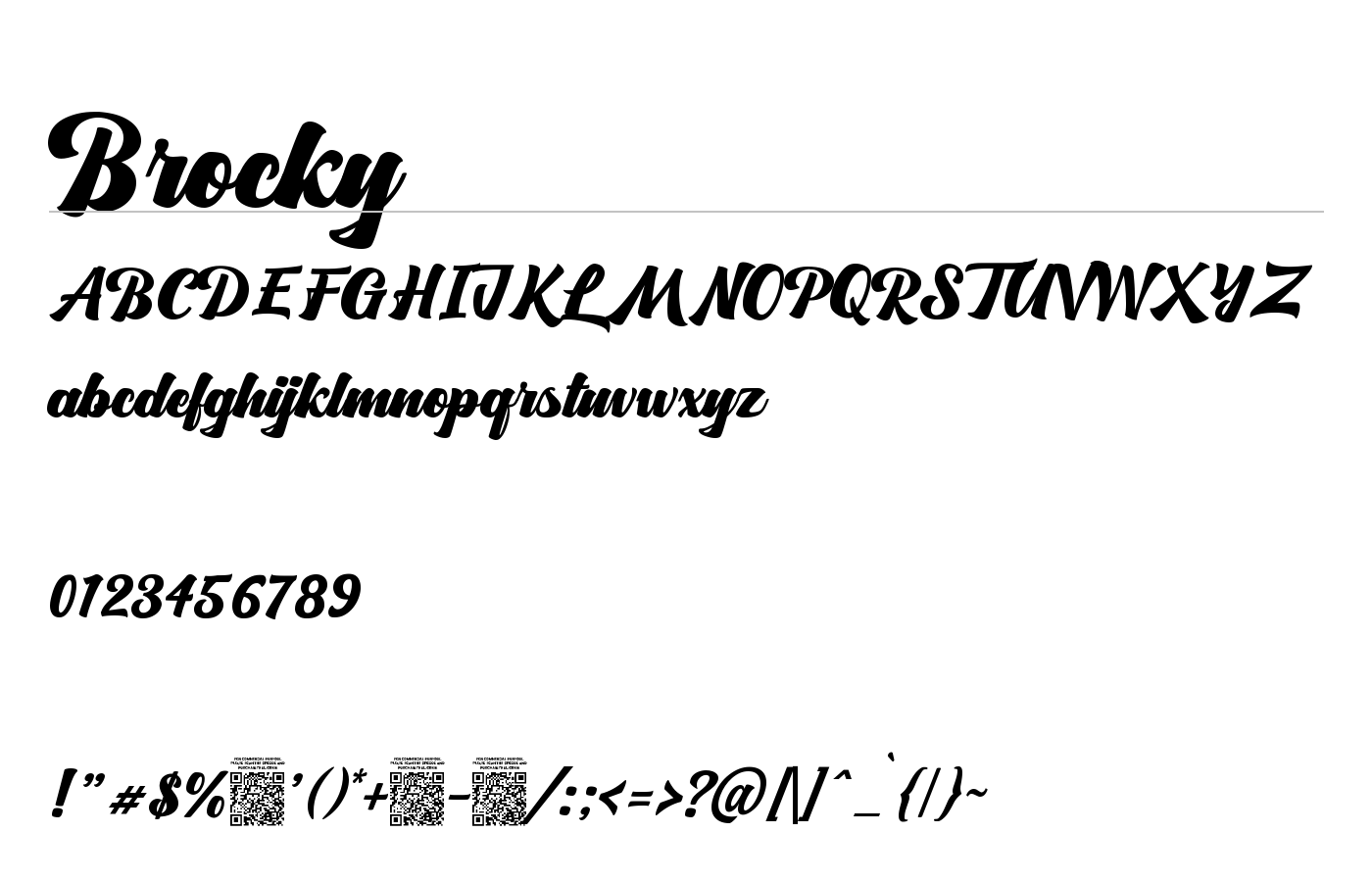
Brocky is a bold, script-style font featuring smooth, flowing strokes with a lively, hand-lettered feel. Its strong weight, slightly condensed letterforms, and distinctive uppercase characters evoke a vintage charm, making it ideal for branding, headlines, and packaging that seek an elegant yet approachable personality. This font works well where a stylish, confident impression is desired without sacrificing readability.
Brocky Font
About Brocky Font
| Font family | Brocky Font |